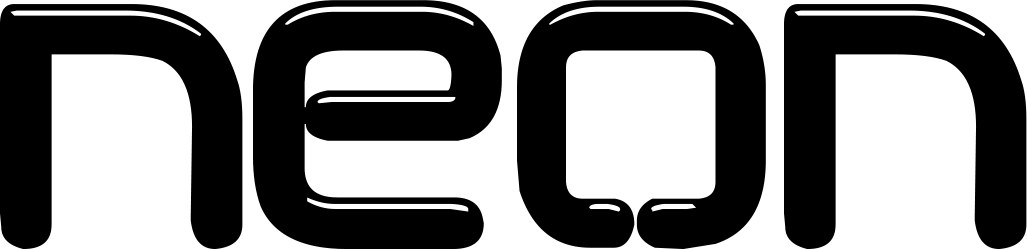
Neon Font
Designed bySeckin Hatipoglu
Choosing the right font is not easy at all, especially for novice graphic designers, if you are hesitant to select one, a party font like Neon can solve your problems. This font, which doesn’t support uppercase letters, can convey a sense of empathy, dynamic, and modernity, so you can use it to design posters, labels, packages, and applications.